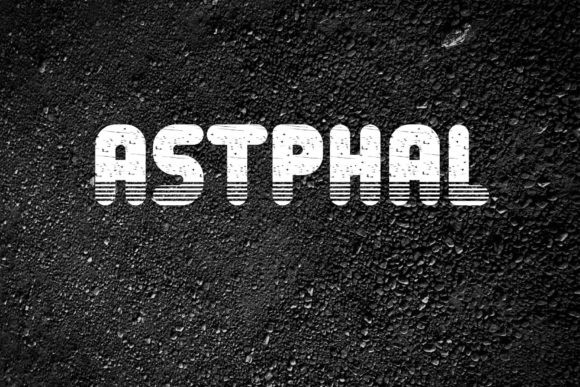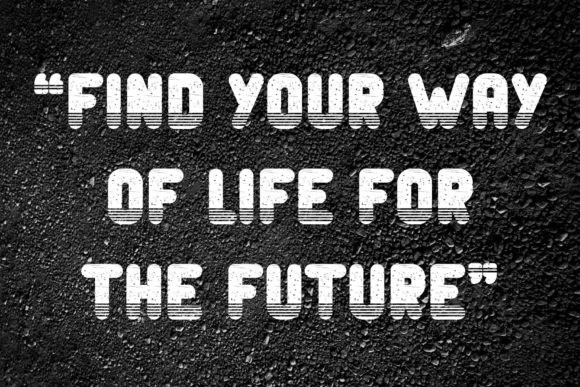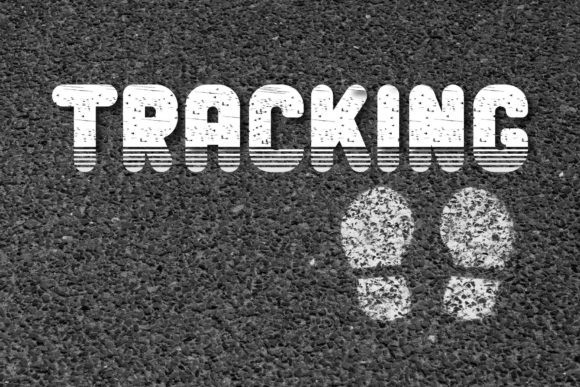
Tracking Display Font
Tracking Display Font is a cool, bold and sharp display font. It will look stunning on any poster flyer or print.
Use this font for your designs and explore its endless possibilities.